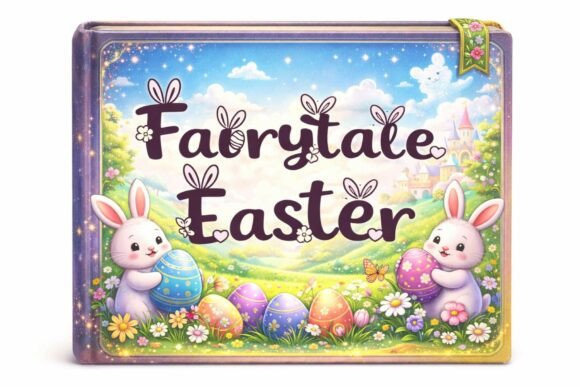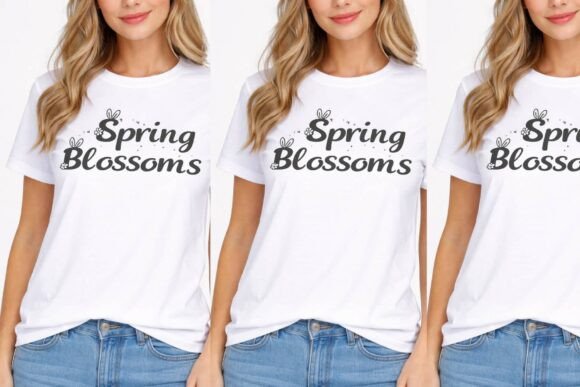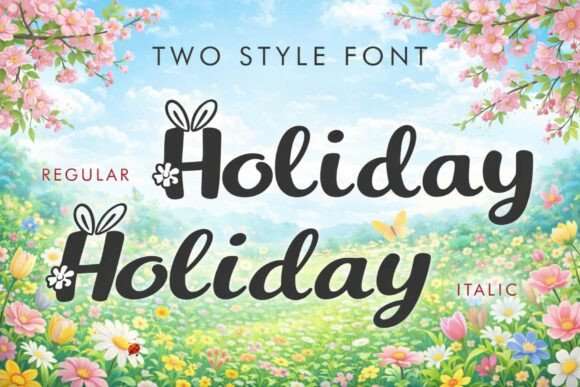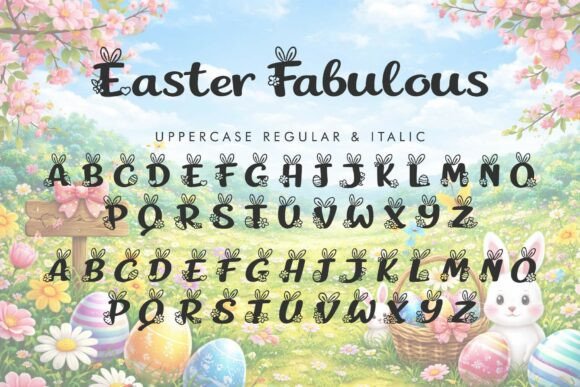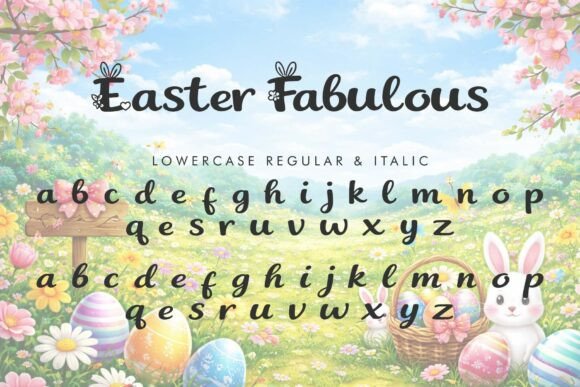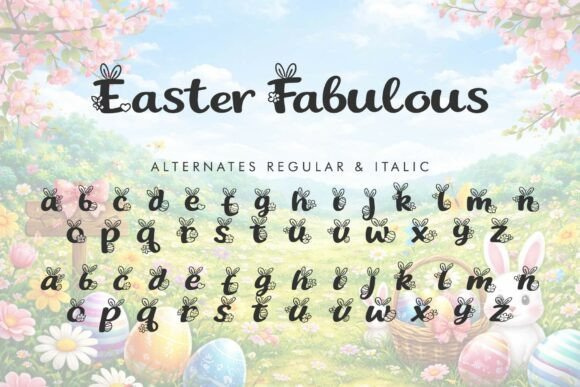
Easter Fabulous Font: The Perfect Addition to Your Design Collection
Are you looking for a unique and fun display font to add a touch of excitement to your designs? Look no further than the Easter Fabulous Font! This charming font is perfect for a variety of projects, from Easter and spring-themed designs to Christmas, cartoons, and children’s books. In this article, we’ll take a closer look at the features and benefits of the Easter Fabulous Font and explore its many uses.
What is Easter Fabulous Font?
Easter Fabulous is a one-of-a-kind display font that is sure to make your designs stand out. It features a playful and whimsical style that is perfect for creating eye-catching headlines, titles, and text. The font includes uppercase and lowercase letters, numerals, punctuations, alternates, and multilingual support, making it a versatile and practical choice for designers.
Key Features of Easter Fabulous Font
- Uppercase and Lowercase Letters: The Easter Fabulous Font includes both uppercase and lowercase letters, allowing you to create a wide range of designs and text styles.
- Numerals and Punctuations: The font also includes numerals and punctuations, making it easy to create complete and cohesive designs.
- Alternates: The Easter Fabulous Font includes alternate characters, giving you even more flexibility and creative options.
- Multilingual Support: With multilingual support, you can use the Easter Fabulous Font to create designs in a variety of languages.
Uses for Easter Fabulous Font
The Easter Fabulous Font is perfect for a wide range of design projects, including:
- Easter and Spring Designs: Create adorable Easter and spring-themed designs, such as greeting cards, posters, and social media graphics.
- Christmas and Winter Designs: The Easter Fabulous Font is also great for Christmas and winter-themed designs, such as holiday cards and decorations.
- Cartoons and Comics: Add a playful touch to your cartoons and comics with the Easter Fabulous Font.
- Children’s Books: The font is perfect for children’s books, making reading fun and engaging for kids.
- Magazines and Newsletters: Use the Easter Fabulous Font to add a pop of color and excitement to your magazines and newsletters.
- Tattoos and Stickers: The font is great for creating fun and playful tattoos and stickers.
- Mother’s Day and St. Patrick’s Day Designs: Create beautiful and festive designs for Mother’s Day and St. Patrick’s Day.
- Embroidery and Flowers: The Easter Fabulous Font is perfect for embroidery and flower designs, adding a delicate and charming touch to your work.
Why Choose Easter Fabulous Font?
There are many reasons to choose the Easter Fabulous Font for your design projects. Here are just a few:
- Unique and Fun: The Easter Fabulous Font is a one-of-a-kind font that adds a touch of fun and excitement to your designs.
- Versatile: The font is perfect for a wide range of design projects, from Easter and spring to Christmas and winter.
- High-Quality: The font is high-quality and professionally designed, ensuring that your designs look great and are legible.
In conclusion, the Easter Fabulous Font is a unique and fun display font that is perfect for a wide range of design projects. With its uppercase and lowercase letters, numerals, punctuations, alternates, and multilingual support, it’s a versatile and practical choice for designers. Whether you’re creating Easter and spring-themed designs, Christmas and winter designs, or cartoons and comics, the Easter Fabulous Font is sure to add a touch of excitement and whimsy to your work.